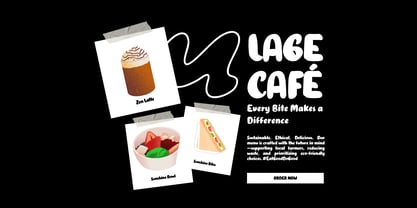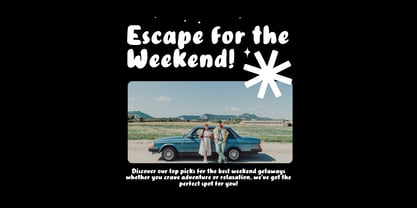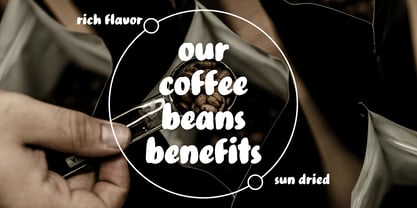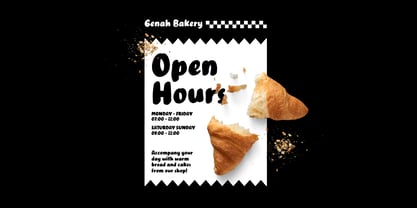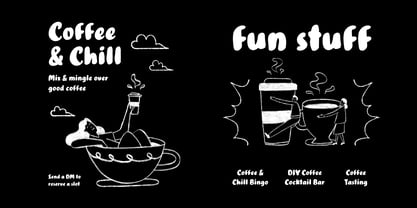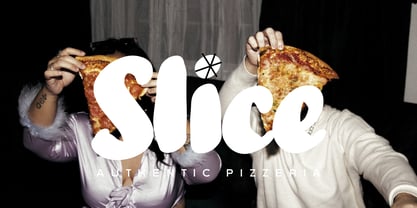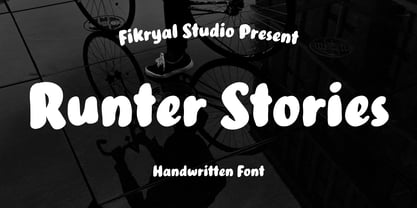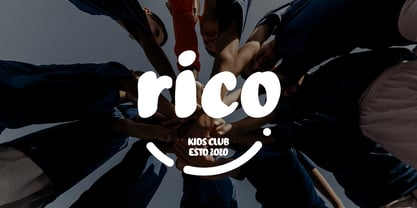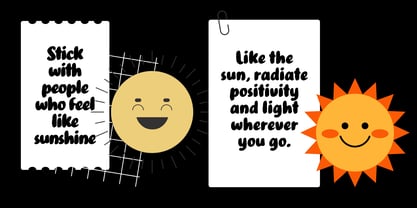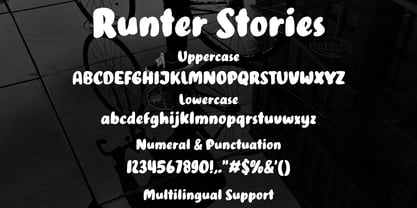
Runter Stories
La familia tipográfica Runter Stories fue diseñada por Muhammad Fikry y publicada por Fikryal. Runter Stories contiene 1 estilos.
Runter Stories is a bold handwritten font with a playful and lively personality. Designed with chunky yet smooth strokes, this font brings a fun and friendly vibe to any design project. Whether you’re working on branding, packaging, social media graphics, or merchandise, Runter Stories adds a natural and expressive touch that stands out.
Perfect for:
• Branding & logo design
• Packaging & product labels
• Social media posts & quotes
• Children’s books & playful designs
• Merch & apparel
Features:
Bold & chunky handwritten style
Multilingual support
Uppercase & lowercase letters
Punctuation & symbols
Add a touch of fun and boldness to your designs with Runter Stories – the perfect handwritten font for creative projects!